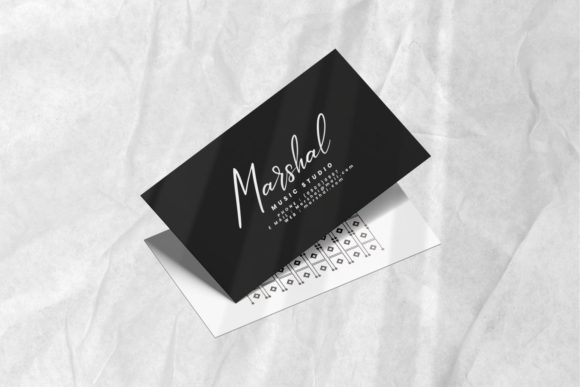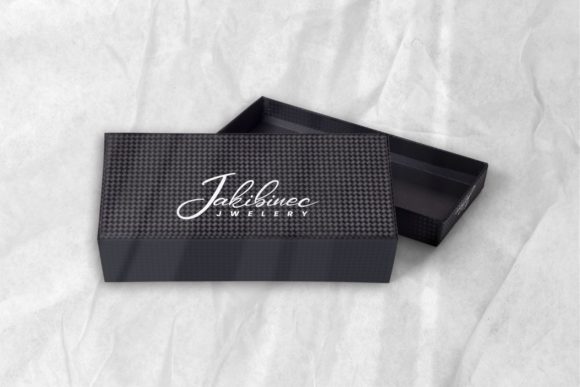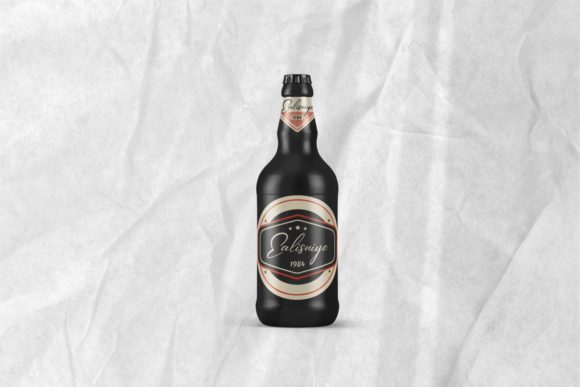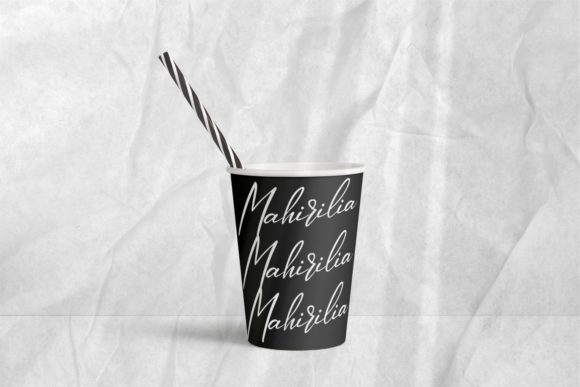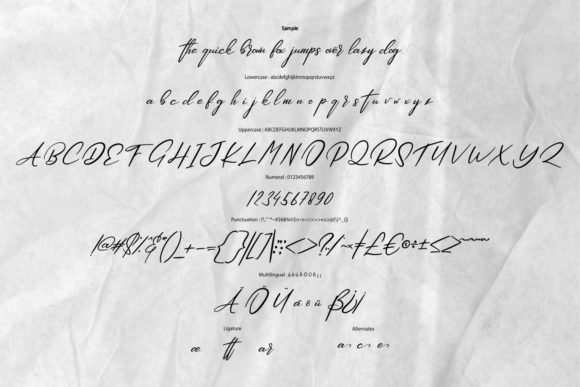
Unleash Your Creativity with the Perfect Handwritten Font
Have you ever found yourself stuck in front of your design software, trying to come up with the perfect font for your project? You scroll through your options, but nothing seems quite right. It’s in those moments that we wish we had a magic wand to bring our creative vision to life.
That’s where the Arsttiorisa Font comes in – a chic and stylish handwritten font that’s designed to make your designs stand out. Whether you’re creating eye-catching logos, branding, or quotes, this font is the perfect choice. Its unique and beautiful touch will bring your design to life, making it truly unforgettable.
For designers, the Arsttiorisa Font is a valuable asset that can elevate their work to the next level. With its versatility and charm, it’s a must-have in any design toolkit.
Arsttiorisa Font Key Features
- Unique Characteristics: Arsttiorisa Font features a unique blend of modern and classic elements, with intricate details and subtle texture, adding a touch of sophistication to any design.
Arsttiorisa Font Review
As a designer, I was excited to dive into the world of Arsttiorisa Font, a typeface that promises to bring a touch of elegance and sophistication to any project. Here’s my honest review.
- The unique blend of modern and vintage elements makes Arsttiorisa Font a standout in the world of typography.
- The font’s subtle flair and refined lines create a sense of refinement and luxury.
- The extensive character set and language support make it a great choice for international projects.
- The font may be too ornate for certain projects, such as websites or apps where a clean and simple design is preferred.
- The lack of bold weight options may limit its use in certain design scenarios.
- The font may not be suitable for projects with tight kerning requirements, as the letterforms can be quite wide.
Overall, I think Arsttiorisa Font is a beautiful and unique typeface that can add a touch of sophistication to any project. While it may have some limitations, I believe it’s a great choice for designers looking to add some elegance and refinement to their work.
Tip: Use Arsttiorisa Font for headings and titles to add a touch of elegance to your designs.
Tip: Use Arsttiorisa Font for typography-heavy designs, such as posters or business cards.
Tip: Use Arsttiorisa Font for presentations or documents that require a touch of sophistication.
Arsttiorisa Font is ideal for:
- Business cards and resumes
- Posters and flyers
Remember to use Arsttiorisa Font in moderation to avoid overwhelming your design.
Alternatives to Arsttiorisa Font
Playfair Display is a luxurious, high-end serif font that is perfect for making a statement. It is ideal for use in headings, titles, and other prominent text. Compared to Arsttiorisa Font, Playfair Display is more elegant and refined, making it a great choice for upscale designs.
Great Vibes is a beautiful, elegant script font that is perfect for adding a touch of sophistication to your designs. It is ideal for use in headings, titles, and other prominent text. Compared to Arsttiorisa Font, Great Vibes is more fluid and cursive, making it a great choice for designs that need a more personal touch.